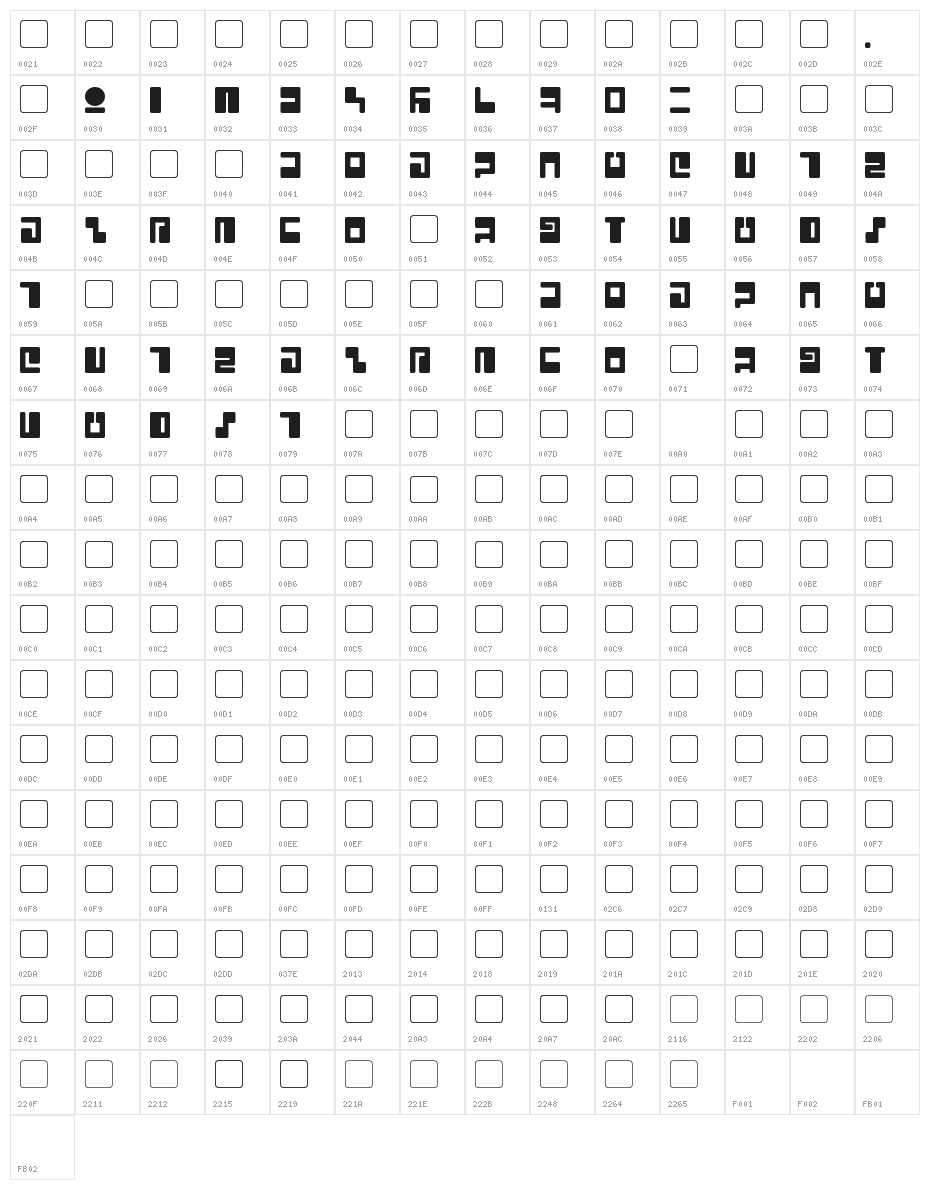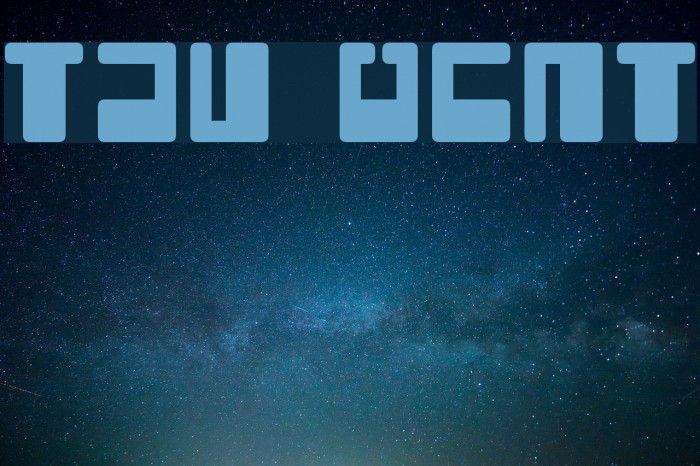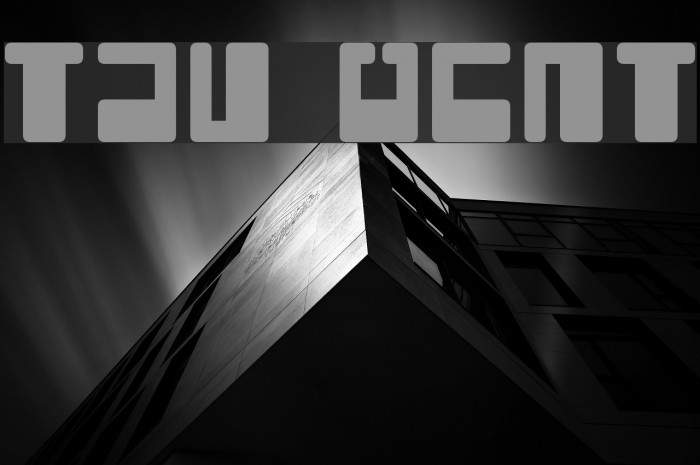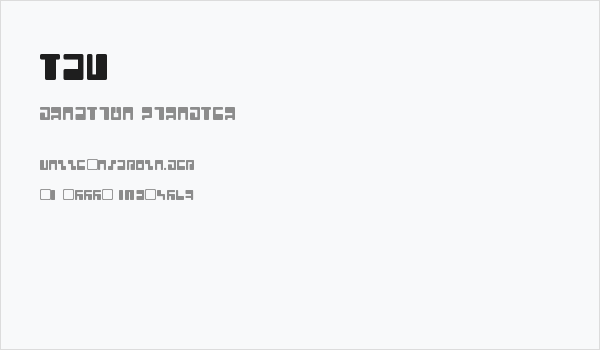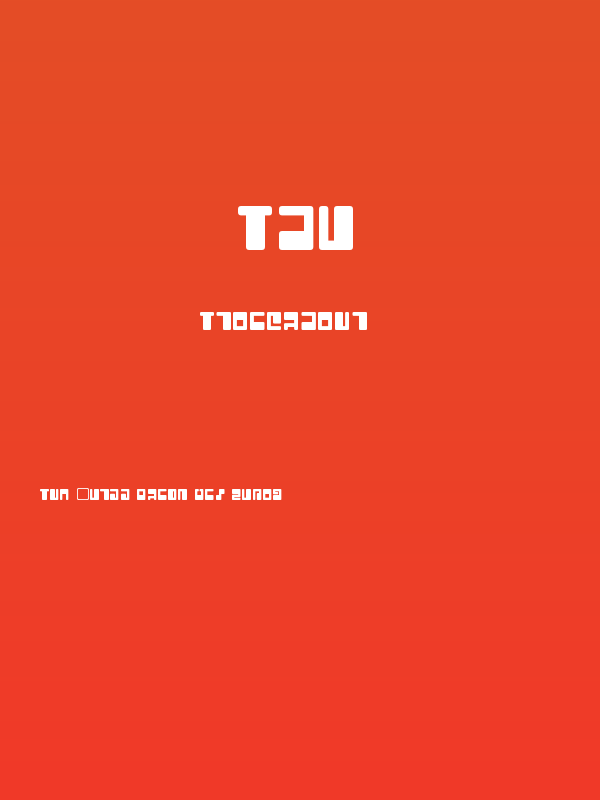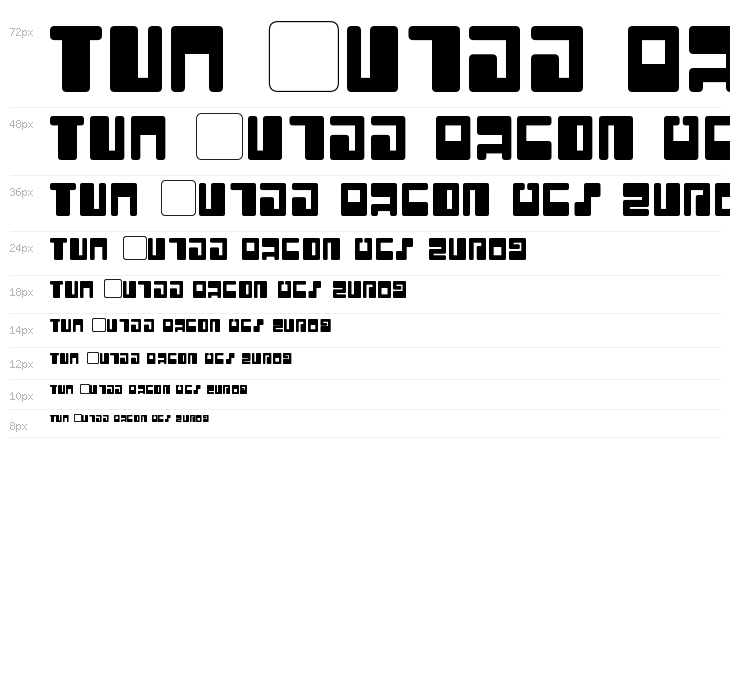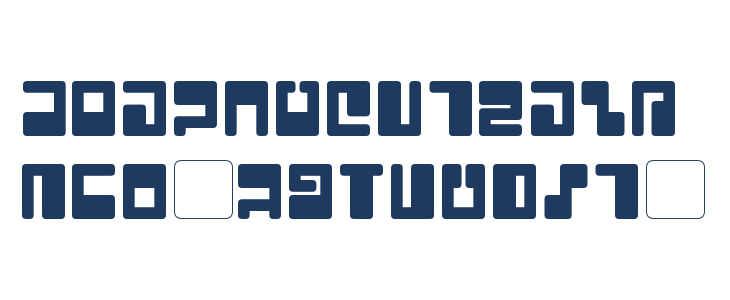
Tau Font
Tau Description
This font features a futuristic and geometric design, characterized by bold, block-like shapes with rounded edges. The characters are uniform in height and width, creating a cohesive and structured appearance. The style is reminiscent of digital or sci-fi themes, with a strong emphasis on symmetry and balance. The letters and numbers are easily distinguishable, despite their unconventional forms, making it suitable for creative and modern design projects. The font's unique aesthetic is enhanced by its solid, filled-in appearance, which gives it a substantial and impactful presence.
| Proposed Projects | Ideal for sci-fi themed designs, digital art, video game graphics, and modern branding projects. |